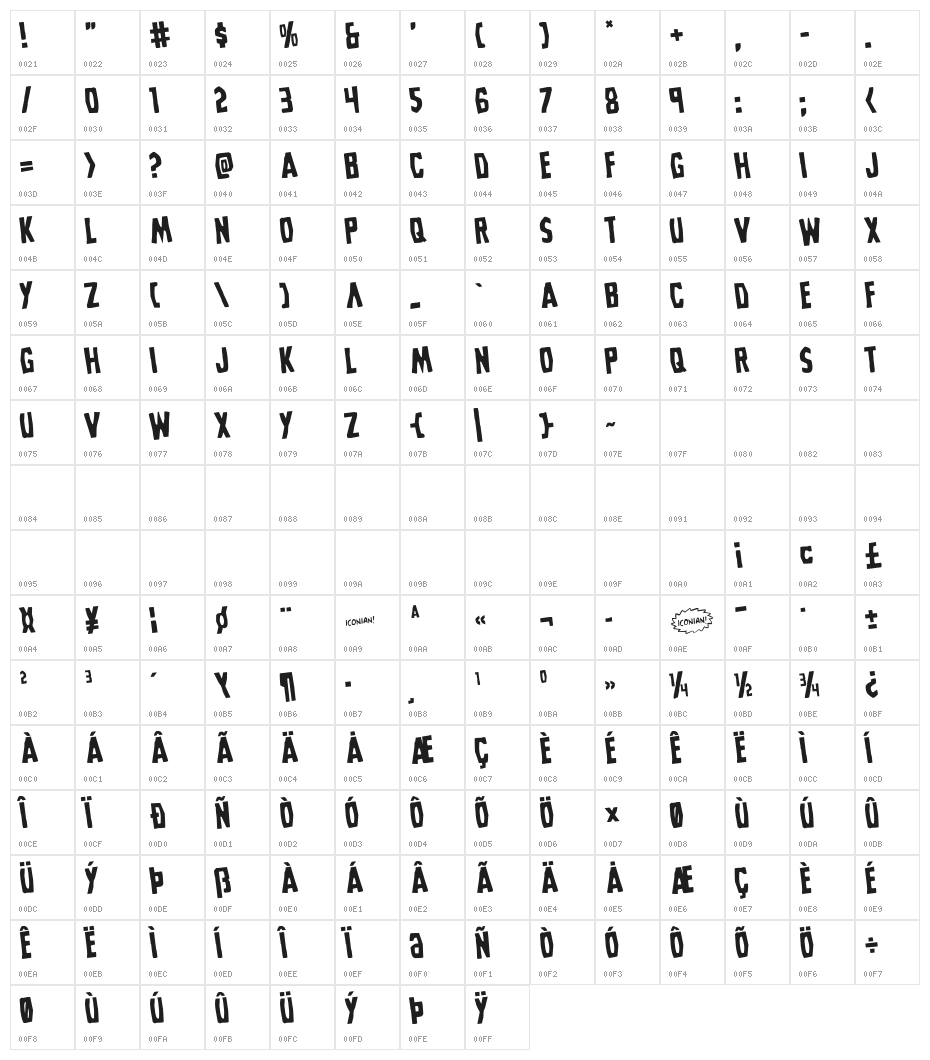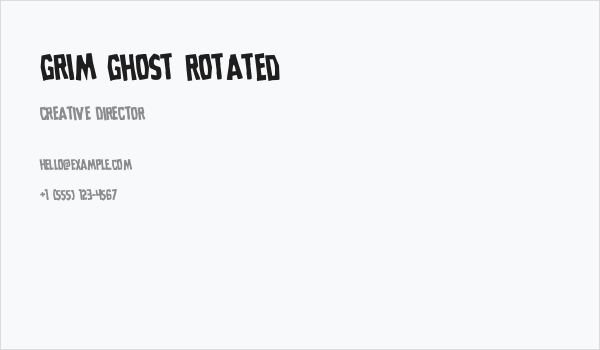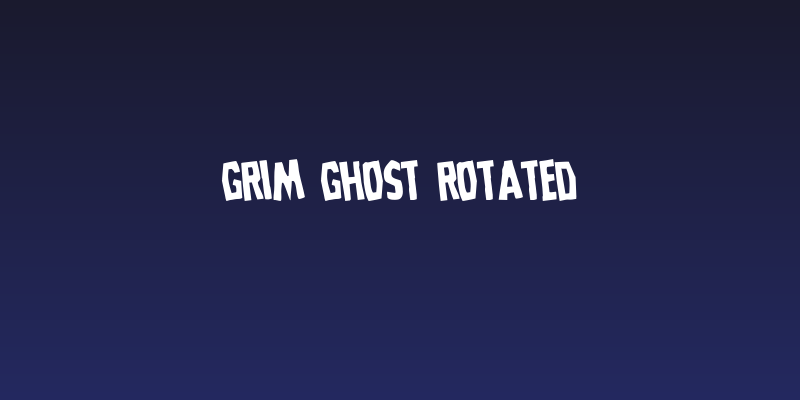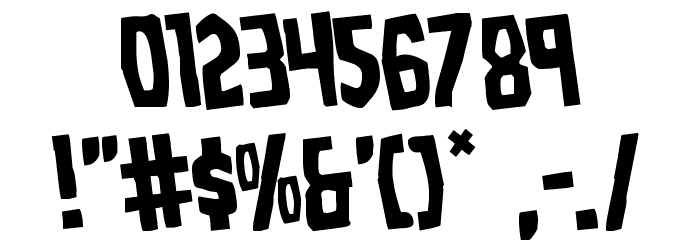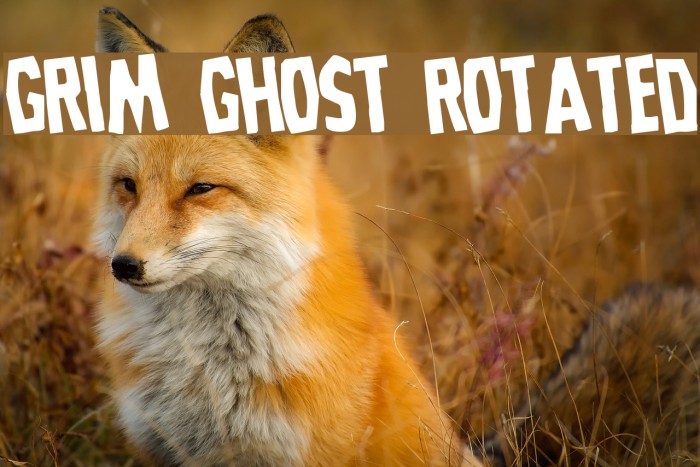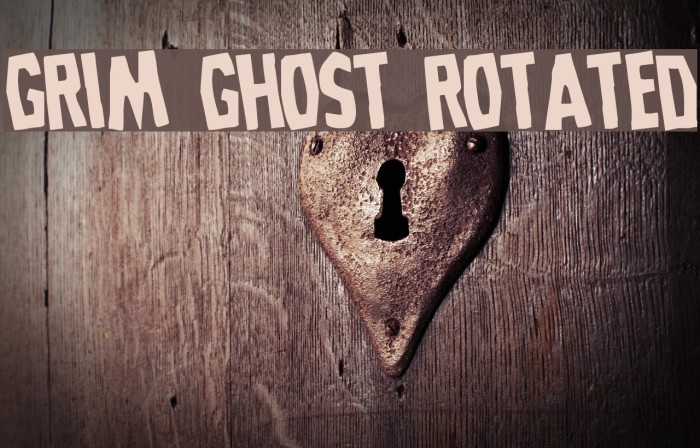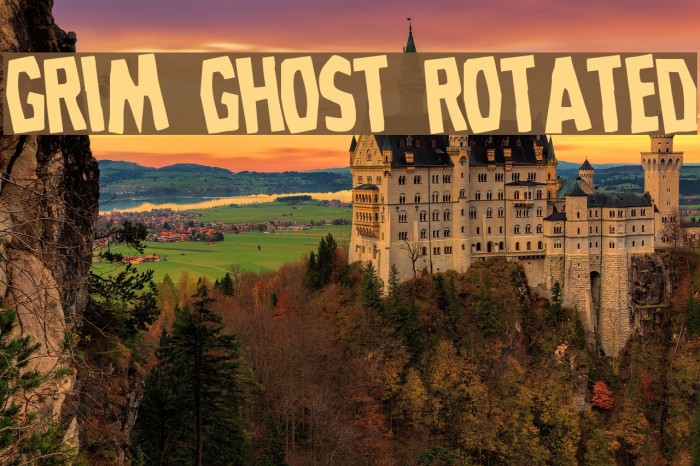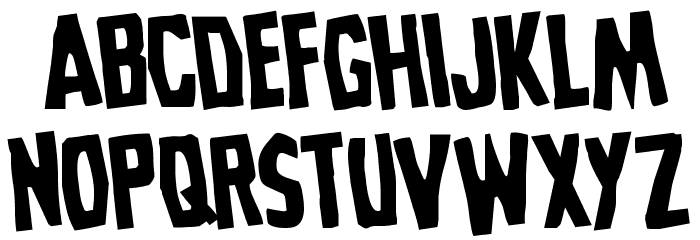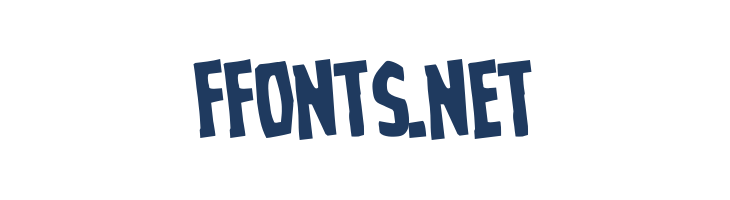
Grim Ghost Rotated Font
This font features a bold and irregular design, with each character appearing slightly tilted or rotated, giving it a dynamic and edgy appearance. The strokes are thick and uneven, contributing to a rugged and hand-drawn aesthetic. The uppercase and lowercase letters maintain a consistent style, with exaggerated angles and a playful, almost chaotic arrangement. Numbers and special characters follow the same bold and quirky pattern, making the font suitable for attention-grabbing designs. Its unique style is reminiscent of graffiti or street art, adding a rebellious and unconventional flair to any project.
| Proposed Projects | Ideal for posters, album covers, street art designs, and any project requiring a bold, unconventional look. |